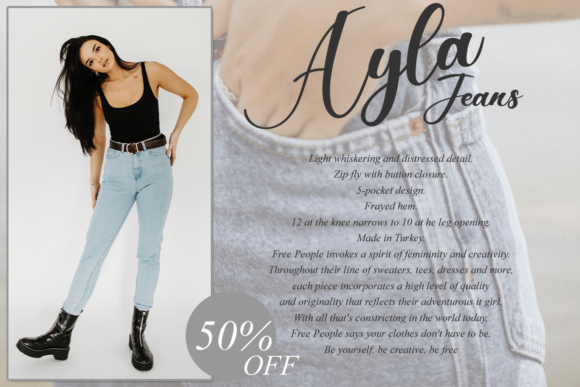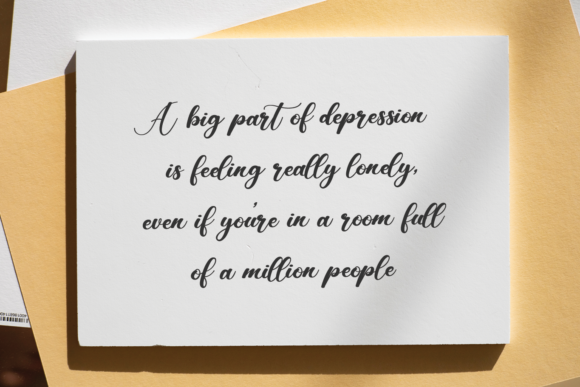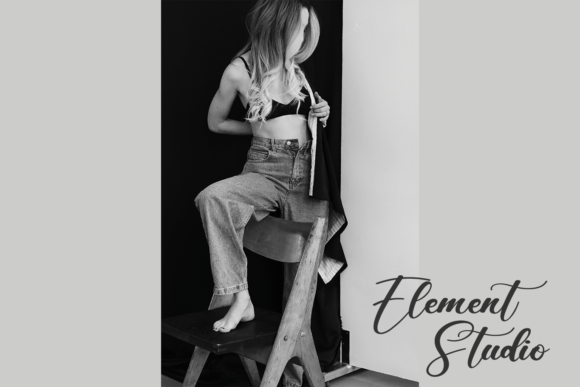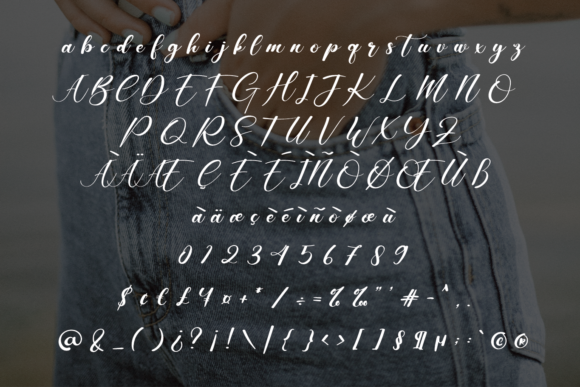
The Manila Font
About The Manila Font
The Manila is a round-lettered script font. It has a modern yet whimsical style and it will undoubtedly immerse your designs into a magical world.